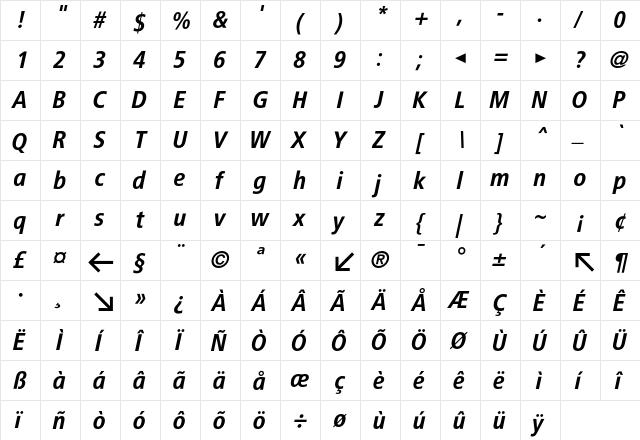
BVGPosHinKursiv Regular
Design Context for BVGPosHinKursiv Typeface
BVGPosHinKursiv is a composed and adaptable typeface that performs quietly and consistently across a wide range of design contexts. The slanted form adds forward momentum and visual energy.
Pro Tip: Try BVGPosHinKursiv for annotation and caption copy alongside an upright companion — the contrast in angle creates a dynamic but ordered typographic system.